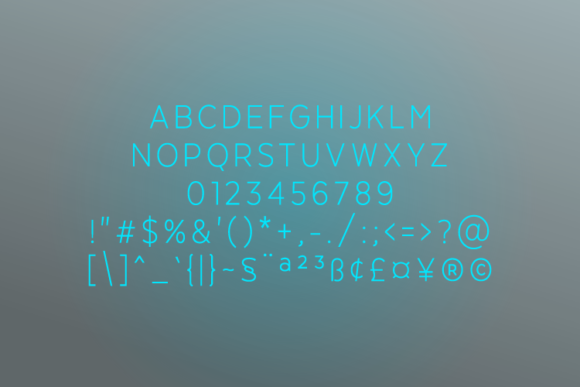
Unleashing Creativity with the Perfect Font: Agnella Light Font
As designers, we’ve all been there – staring at a blank page, struggling to find the right words to bring our vision to life. It’s the moment when the perfect font can make all the difference. For me, it was the discovery of the Agnella Light Font that sparked a wave of creativity. This elegant sans serif font has a way of elevating any design, adding a touch of sophistication and refinement.
The Agnella Light Font is a versatile tool designed to meet the needs of modern designers. With its unique vertically and horizontally cut stems, it exudes strength and stability. Whether you’re working on a corporate identity, a blog, or a marketing campaign, Agnella Light Font is an excellent choice. Its subtlety makes it valuable for designers who want to convey a sense of calmness and professionalism without overpowering their message.
- Unique Characteristics: This font features a unique blend of elegance and sophistication, making it perfect for use in high-end designs, luxury brands, and premium publications.
- Font Style: Agnella Light Font is a sans-serif font with a light weight, ideal for use in body text, headings, and titles where a clean and modern look is desired.
Agnella Light Font Review
I recently had the chance to work with Agnella Light Font, and I must say, it’s an interesting addition to my design toolkit. Here’s what I liked and didn’t like about it:
- Beautifully crafted letterforms that give the font a unique, elegant touch.
- Great for use in headings and titles, where its sophistication can really shine.
- Supports a wide range of languages, making it a versatile choice for multilingual designs.
- The font can feel a bit too delicate for body text, where legibility is key.
- May not be the best choice for bold or attention-grabbing typography, as it can get lost in larger sizes.
- Some characters may not be as well-designed as others, which can be distracting in certain contexts.
Agnella Light Font is a beautiful, sophisticated font that’s perfect for adding a touch of elegance to your designs. While it may have some limitations, it’s a great choice for headings, titles, and other situations where you want to make a statement. Just be mindful of its delicate nature and use it in contexts where it can shine.
Agnella Light is a versatile font that can be used for logotypes or titles, but it’s essential to consider the font’s legibility and visual impact. The font’s light weight and sans-serif design make it suitable for use in titles, headings, and logotypes, but it may not be the best choice for body text or large blocks of text.